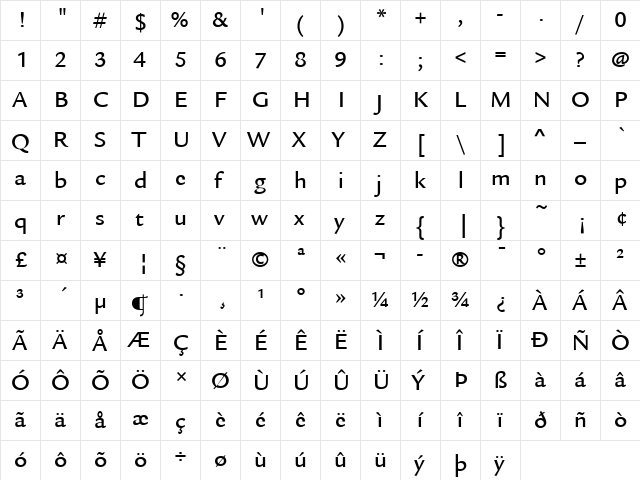
ITCLegacySans LT Medium Regular
Design Context for ITCLegacySans LT Medium Typeface
ITCLegacySans LT Medium offers clean, dependable letterforms without strong stylistic allegiance, making it a practical choice for designers who need flexibility. Its slender proportions lend an understated elegance to any composition.